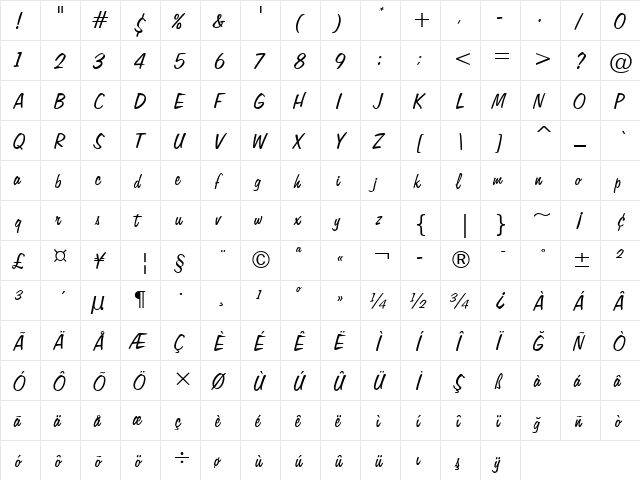
TR Freehand575 Regular
Design Context for TR Freehand575 Typeface
TR Freehand575 flows with the natural rhythm of handwritten lettering, making it ideal for designs that call for warmth and personal expression.
Font Pairing: Combine TR Freehand575 with a simple geometric sans for maximum contrast — the tension between flowing curves and clean structure is a classic typographic pairing.
Pro Tip: Use TR Freehand575 for short runs of text — names, titles, or taglines. Extended body copy in script faces tires the eye quickly.